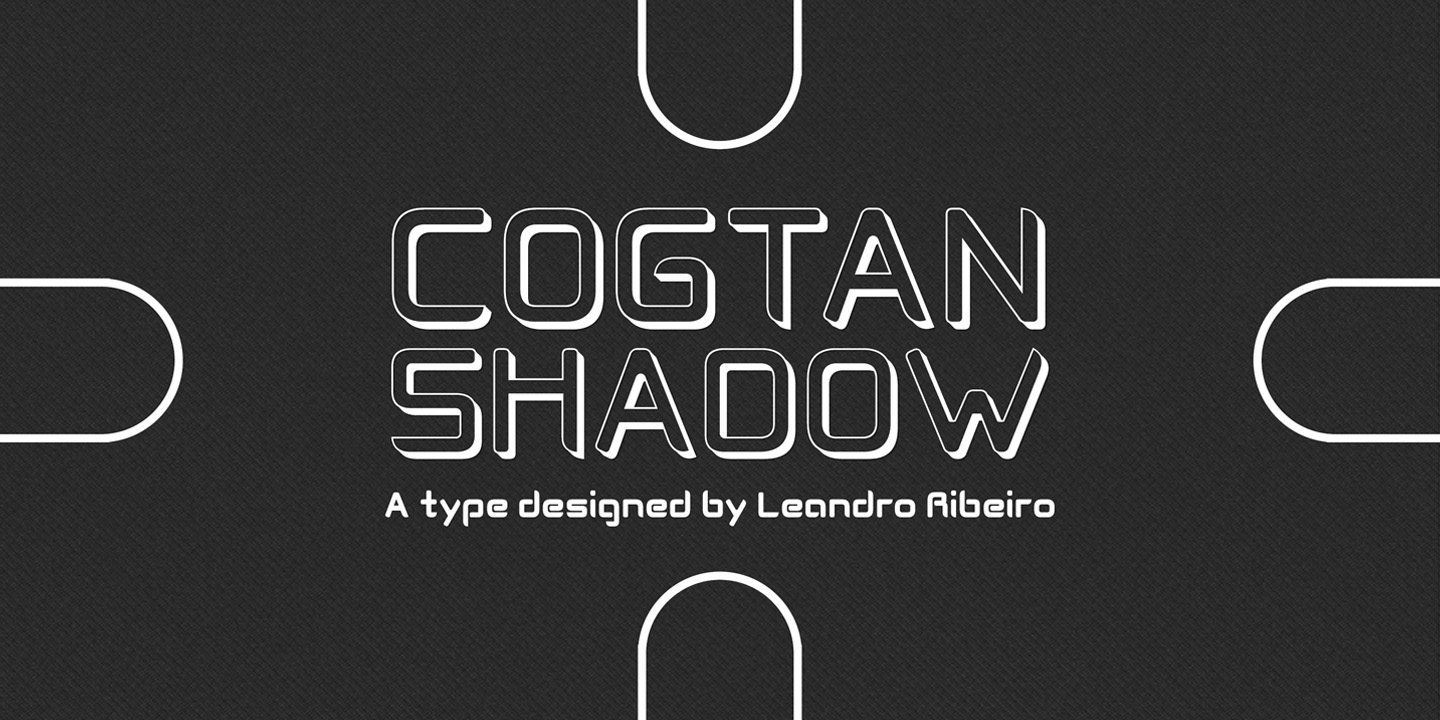
Cogtan Shadow
Designed by Leandro Ribeiro Machado, Cogtan Shadow is a display sans font family published by Leandro Ribeiro Machado.
Cogtan Shadow is a source geometric shape with respect single structure. The shape of each character is very simple and contemporary. I recommend using the title or short phrase on posters and especially useful for design work.